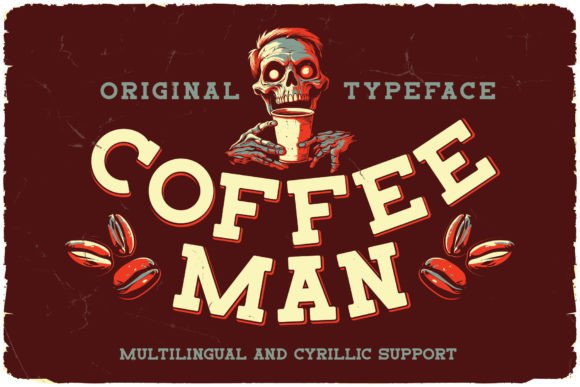
Get ready to transport your designs back in time with the captivating serif font, "Coffee Man." This remarkable typeface oozes vintage charm and elegance, adding a touch of nostalgia to your creative projects. Picture yourself brewing a cup of inspiration and letting the "Coffee Man" font guide you through a journey of timeless aesthetics.
Every line, every curve, every contour of "Coffee Man" is meticulously crafted to evoke a sense of the past, conjuring images of old cafes and coffee shops where time seems to stand still. Its bold, unmistakable contours and strong horizontal serifs command attention, ensuring that your text leaps off the page and captivates your audience.
Inspired by mid-20th-century design, "Coffee Man" exudes a sophisticated antique charm, perfect for projects yearning for a touch of yesteryear. Whether you're crafting logos, posters, invitations, or branding materials, this font adds a distinct layer of character and authenticity.
Despite its bold style, "Coffee Man" maintains remarkable readability, making it adaptable to various project sizes. Its versatility extends beyond typography; "Coffee Man" also comes with a collection of 8 unique t-shirt designs specifically tailored to complement its Slab Serif elegance. These designs seamlessly merge the font's bold personality with creative flair, transforming your clothing line into a canvas of style and distinction.